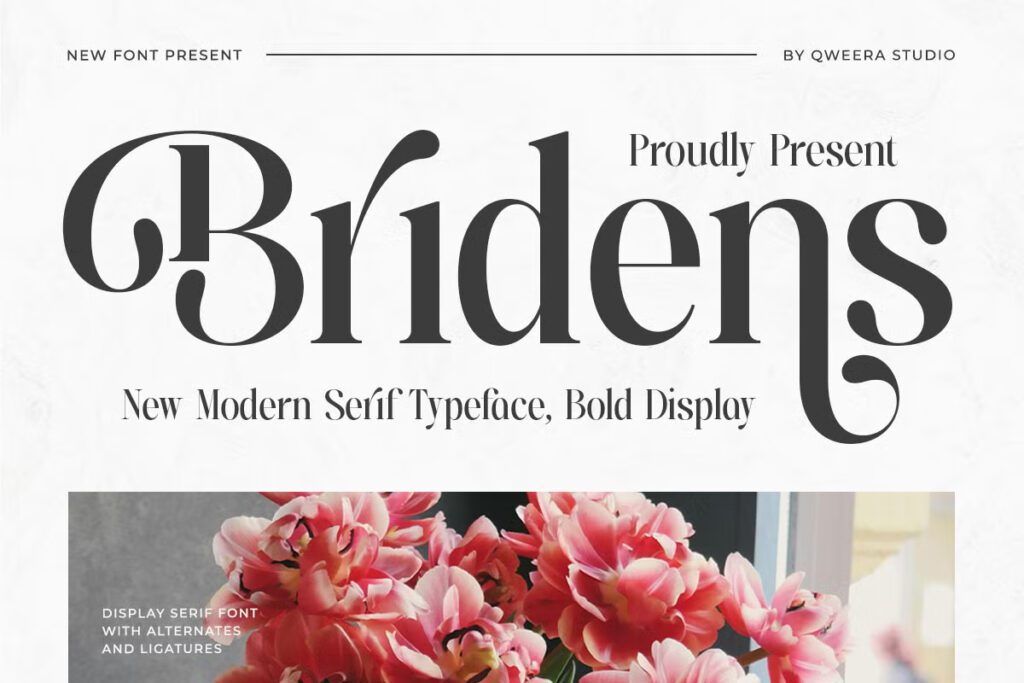
Bridens – Modern Serif Display
Unveil sophistication with Bridens, a modern serif display font crafted to make any design project stand out. Bridens offers Regular and Italic versions, providing the versatility needed for branding, editorial work, and web design. With unique ligatures and alternates, this font is ideal for those looking to add a bold, elegant touch to their projects. Bridens’ timeless appeal and wide multilingual support make it a go-to choice for creators worldwide. Its OpenType features ensure ease of access across popular design platforms.